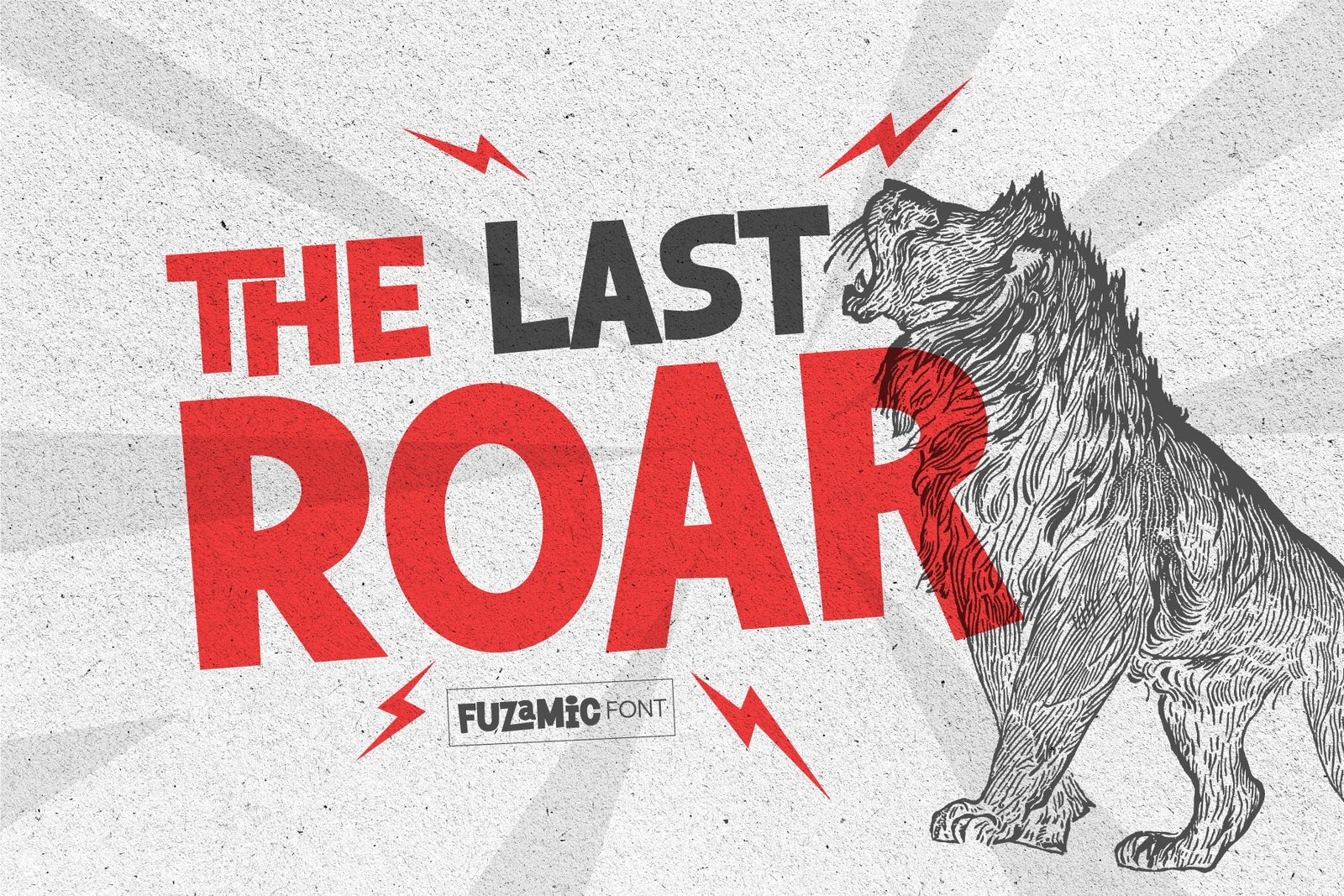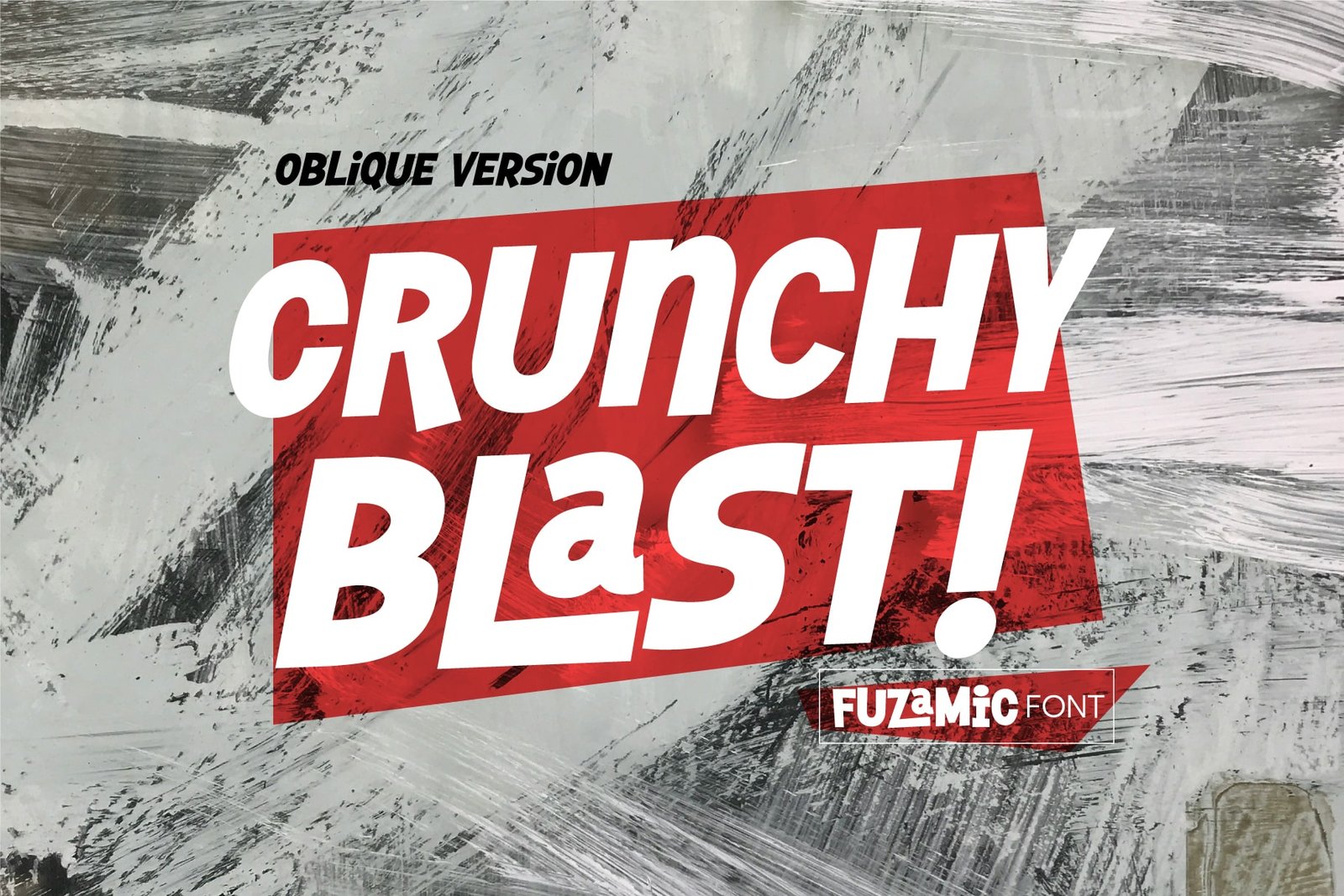
Fuzamic Playful Comic Font
Fuzamic Playful Comic Font is a fun and lively typeface inspired by comic books and hand-drawn lettering. Designed to bring happiness and creativity to your projects, Fuzamic Comic Font combines playful shapes with smooth curves that make every word feel animated and expressive.
This playful comic font includes both uppercase and lowercase letters, alternates, and ligatures — giving you full control over your typography style. Its handcrafted look makes it ideal for creating natural, dynamic text layouts that pop with character.
Fully supporting multilingual characters, Fuzamic Font works beautifully in global design projects. Whether you’re designing a comic title, kids’ logo, poster, t-shirt, product packaging, or YouTube thumbnail, Fuzamic Playful Comic Font delivers that perfect burst of fun and personality your design needs.
Bring your creative ideas to life with Fuzamic Playful Comic Font — where imagination meets joyful design.